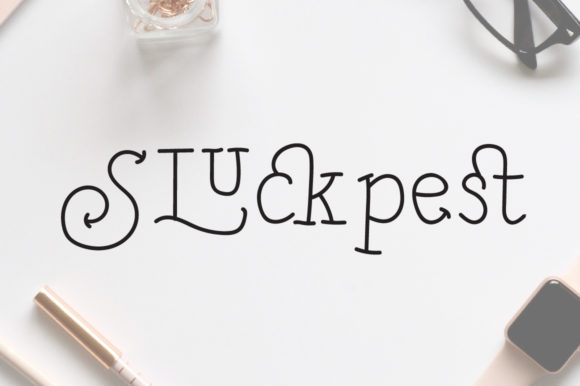
Step into the enchanting world of Sluckpest Font, a whimsical serif masterpiece that adds a touch of magic to your creative endeavors. Crafted by the ingenious Zmapist, Sluckpest is a font family that embodies a unique blend of playfulness, elegance, and a hint of kookiness. Its iconic characters dance across the page, bringing life to your words and captivating your audience from the very first glance.
With Sluckpest Font, you'll embark on a typographic adventure like no other. Its meticulously designed curves, delicate strokes, and captivating details invite you to explore a realm of creative possibilities. Witness how Sluckpest transforms ordinary text into an extraordinary spectacle, leaving an indelible mark on your designs.
As you immerse yourself in the world of Sluckpest, you'll discover a font family that's as versatile as it is beautiful. Its serif design lends a touch of classic sophistication to your projects, while its playful spirit injects a dose of whimsy and fun. Whether you're crafting logos, designing posters, creating social media graphics, or simply adding a personal touch to your digital creations, Sluckpest effortlessly enhances your work, making it stand out from the crowd.
Sluckpest Font possesses an innate ability to evoke emotions and capture attention. Its enchanting characters have a way of captivating your audience, drawing them into your message and creating a lasting impression. Whether you seek to entertain, inform, or persuade, Sluckpest Font becomes your trusted companion, amplifying your words and delivering your message with style and impact.
So, embark on this typographic odyssey with Sluckpest Font. Let its playful spirit ignite your creativity, its versatility elevate your designs, and its captivating charm enchant your audience. Discover the endless possibilities that await you as you delve into the world of Sluckpest, and let your imagination run wild.